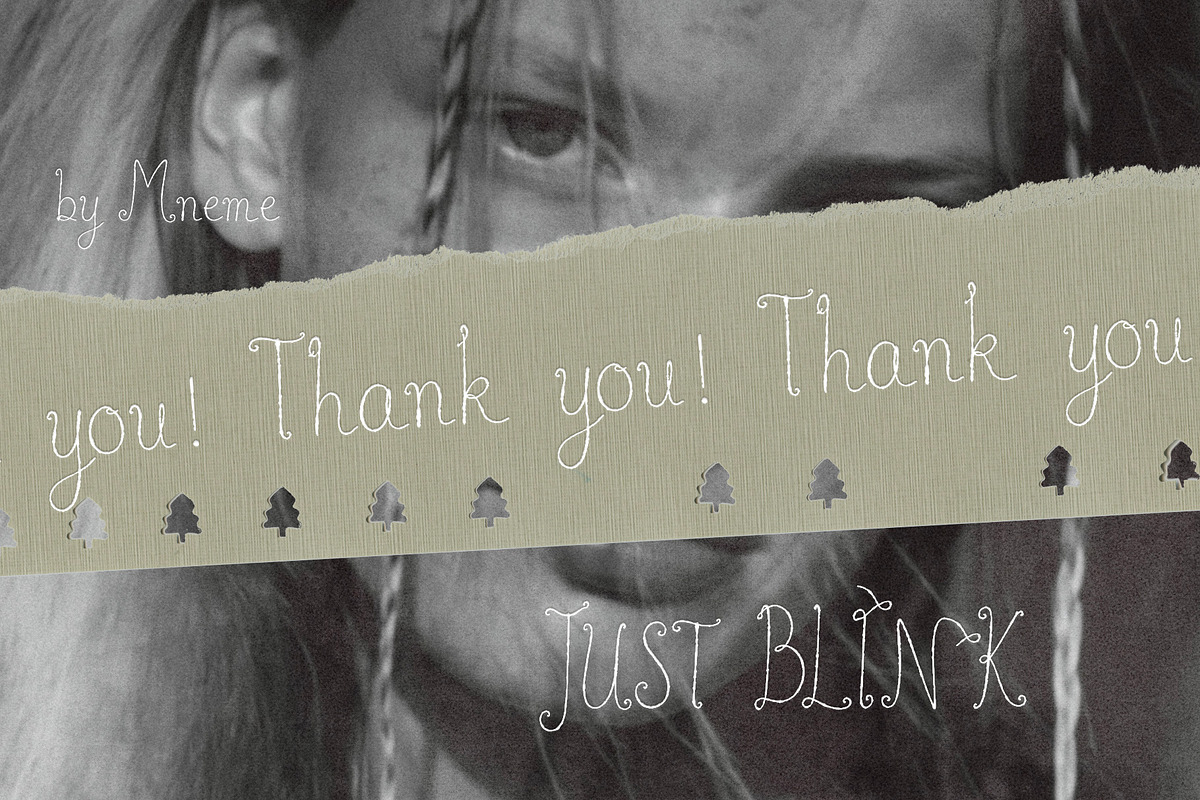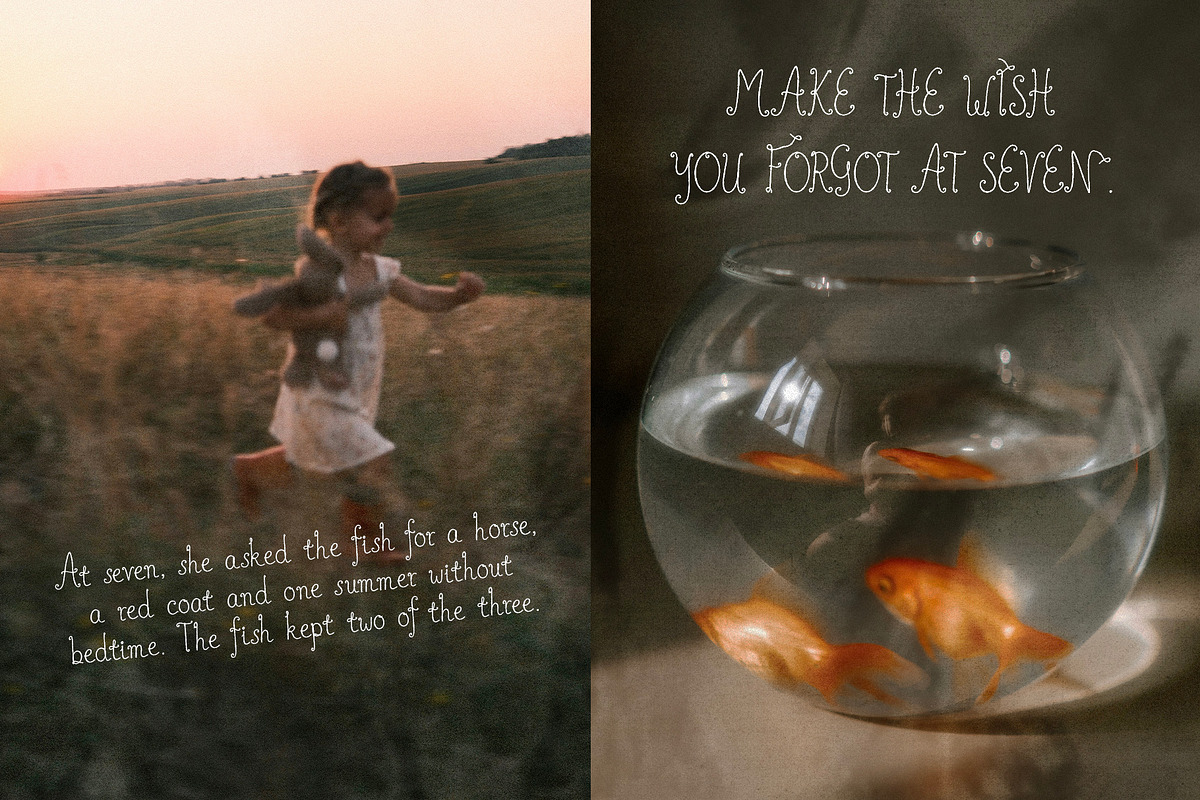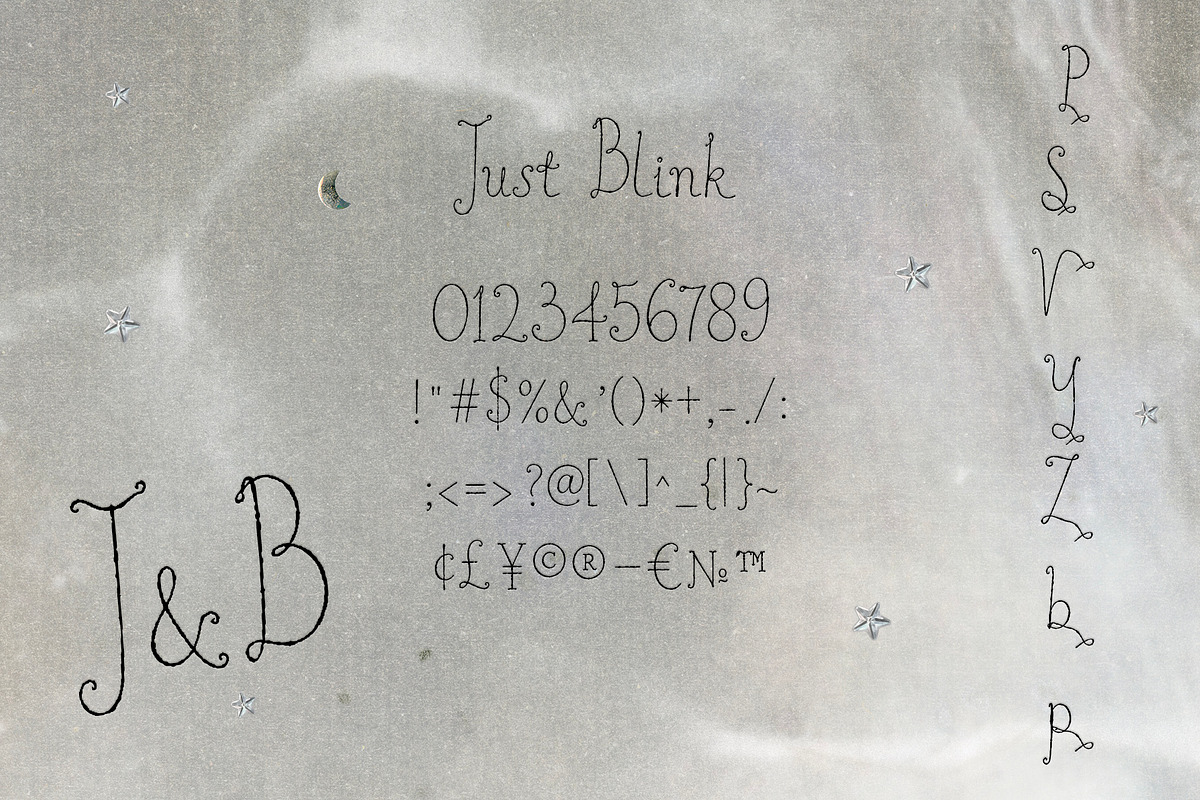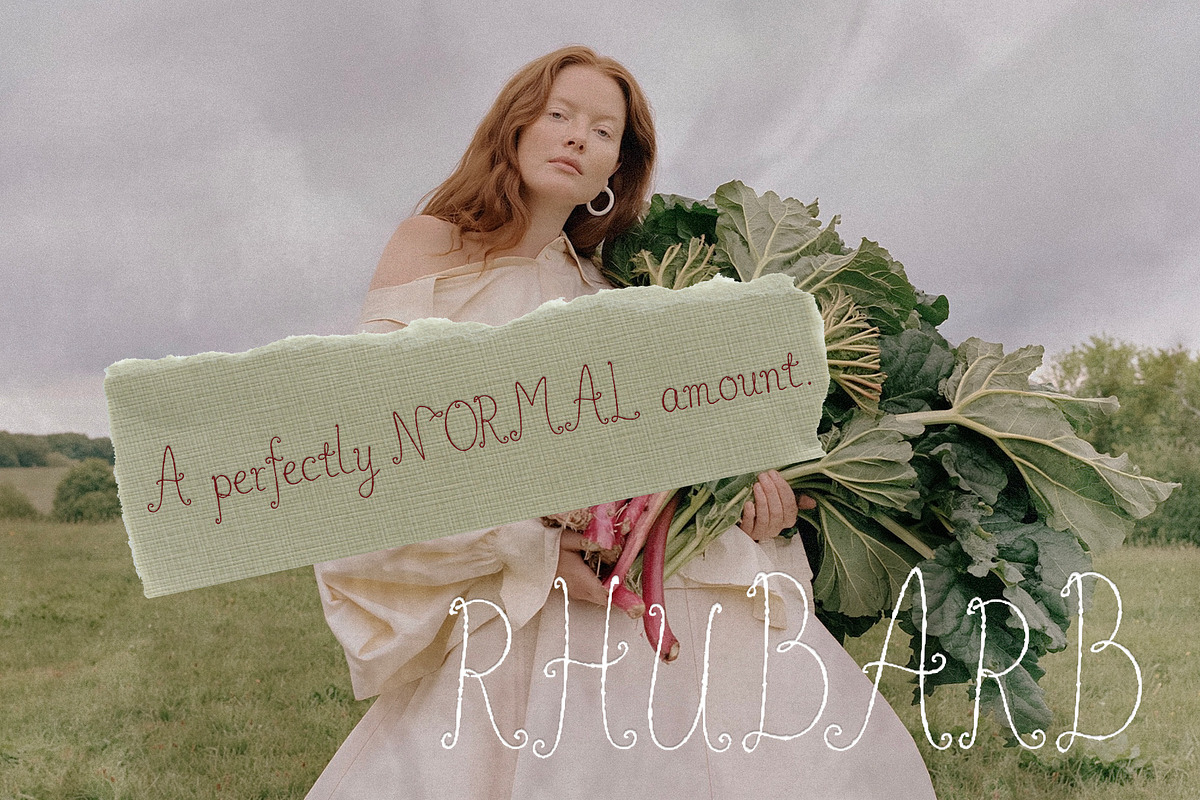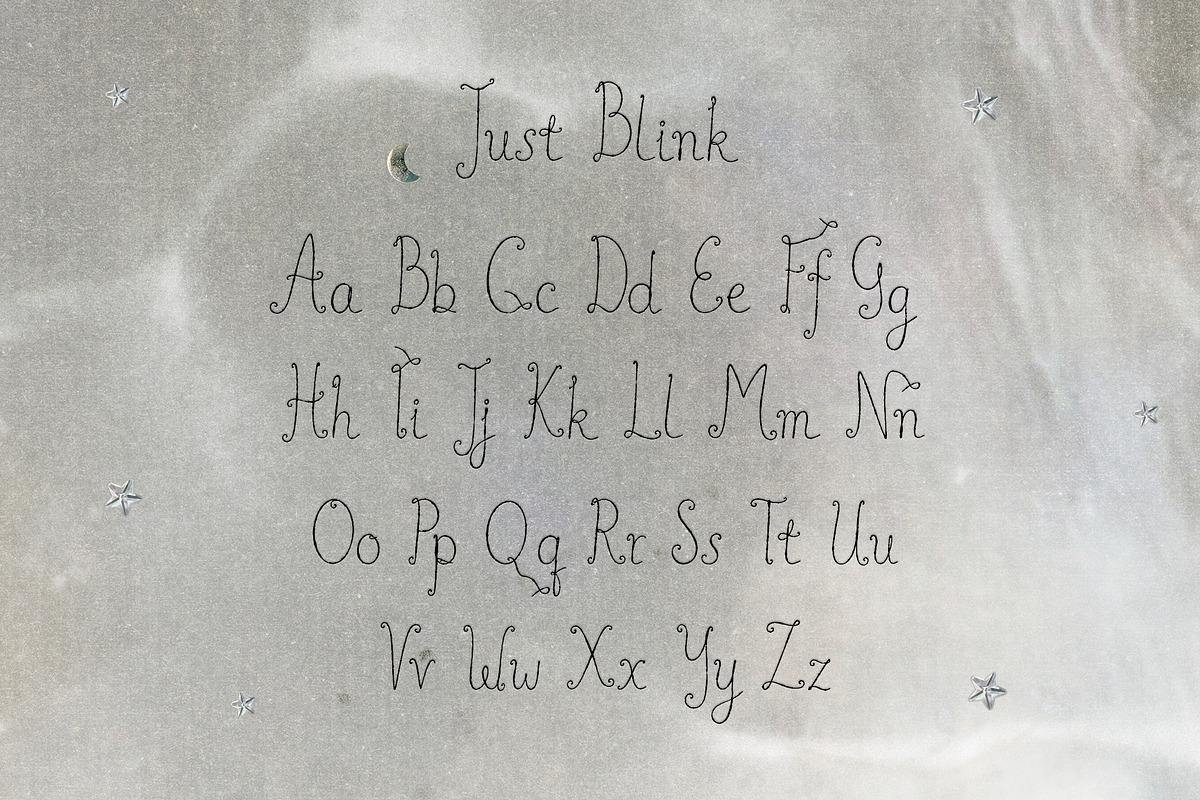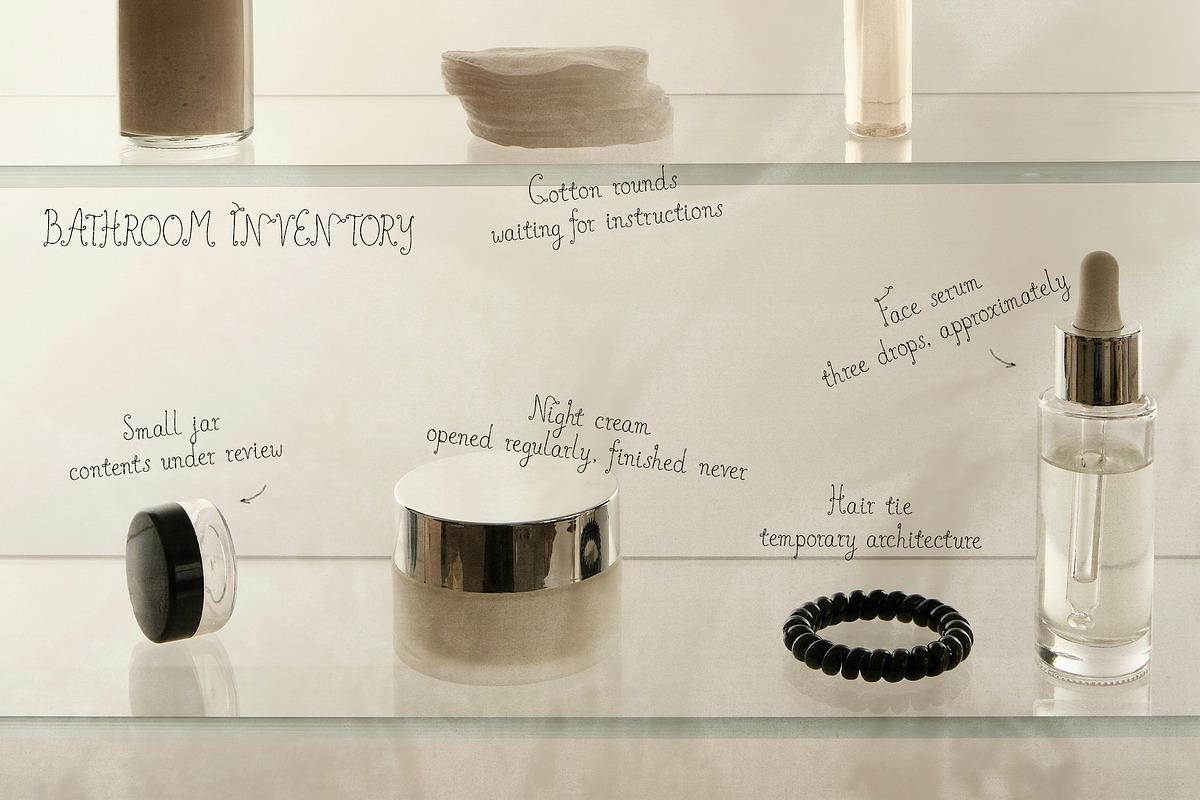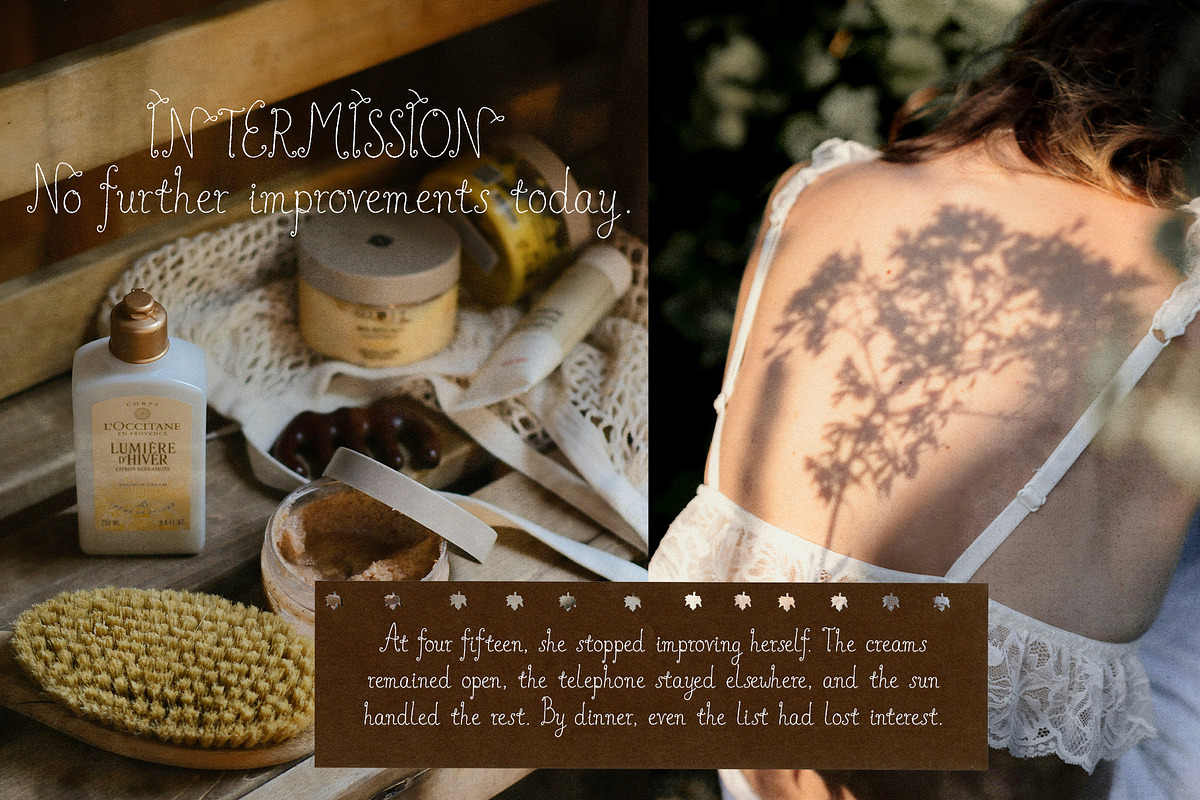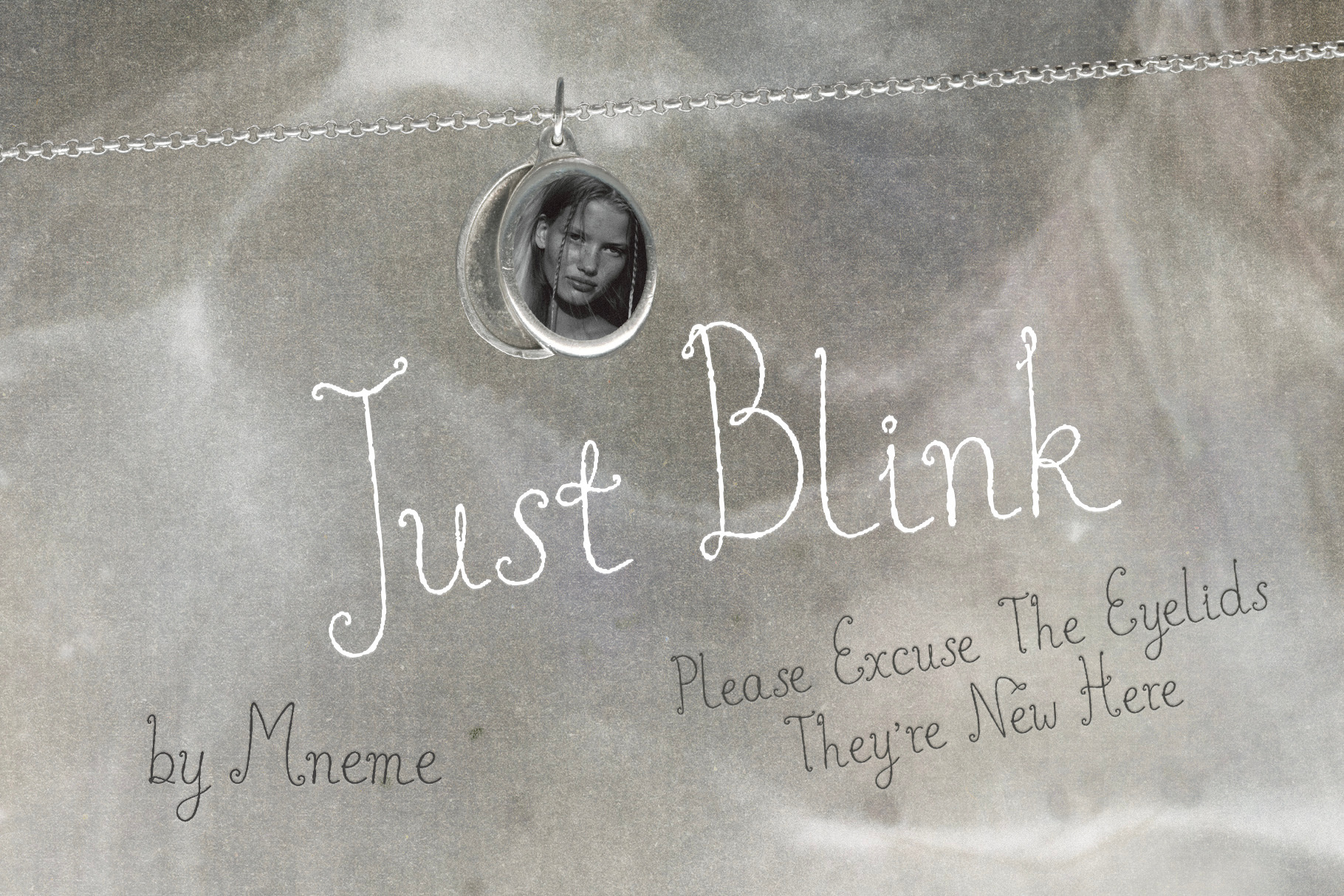
Just Blink Handwritten Font
Just Blink is a tall, irregular handwritten font with fine strokes, eccentric capitals and small curled details. Its narrow proportions keep longer lines readable, while unexpected loops and uneven forms give short titles a distinctive, slightly peculiar character.
The font works especially well for editorial layouts, fashion and beauty branding, packaging, book covers, posters, magazines, stationery, social graphics and expressive handwritten accents.
Uppercase A–Z
Lowercase a–z
Numbers 0–9
Punctuation and symbols